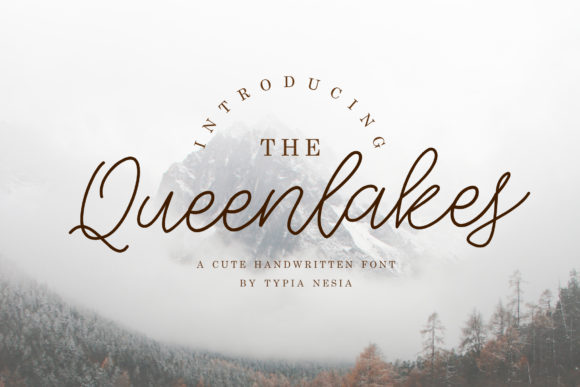
The Queenlakes Font
Font Name : The Queenlakes Font
Author : Typia Nesia
Discover the allure and elegance of The Queenlakes Font, a breathtaking script typeface born from the creative genius of Typia Nesia. Its meticulously crafted characters dance across the canvas, exuding an enchanting aura that captivates the senses. Let your designs bloom with charm as you embrace the romantic essence of The Queenlakes Font.
Immerse yourself in a world where typography meets artistry. The Queenlakes Font invites you to unlock your creative potential, whether you're designing logos, branding, wedding invitations, or any project yearning for a touch of intrigue. Its bold strokes command attention, while its delicate flourishes add a touch of playfulness, making it the perfect choice for those seeking to make a statement.
With The Queenlakes Font, you'll find endless opportunities to express yourself. Its versatile nature allows it to adapt seamlessly to a variety of design styles, from classic and elegant to modern and whimsical. Unleash your imagination and let the flowing lines of The Queenlakes Font weave a tapestry of enchantment in your creative endeavors.
Don't settle for ordinary when you can captivate your audience with The Queenlakes Font. Dive into its depths and uncover the hidden treasures that await. Its unique charm will add a spark of magic to your designs, leaving a lasting impression that resonates with your audience.
Embrace the beauty of handwritten elegance with The Queenlakes Font. Its captivating essence will elevate your designs to new heights, evoking a sense of wonder and enchantment. Let the world fall in love with your creations as you unlock the boundless possibilities of this extraordinary script font.